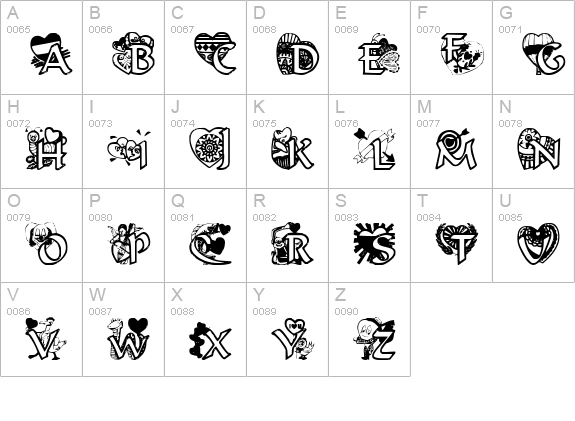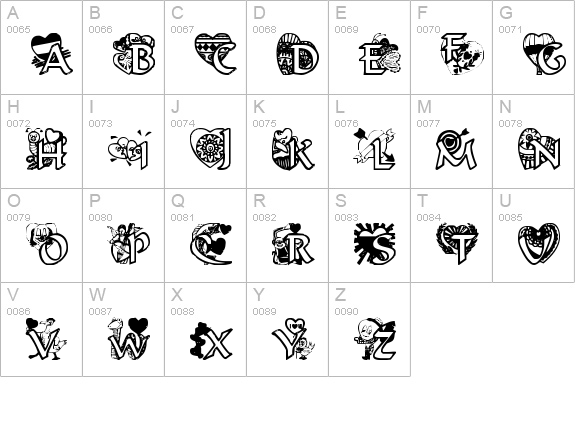
VALENTINEHEARTS Font Details
Introducing VALENTINEHEARTS, a charming and whimsical font that is sure to capture the essence of love and romance. With its delicate and intricate heart-shaped letterforms, this font exudes a sense of warmth and affection, perfect for Valentine's Day greetings, wedding invitations, love letters, and more. VALENTINEHEARTS is a free font that is generously made available for download at FontsMarket.com. Designed with meticulous attention to detail, each letter is adorned with a unique heart motif, creating a truly captivating visual experience. The fluidity of the strokes and the graceful curves of the hearts add a touch of elegance and playfulness to any design project. Whether you are crafting an enchanting love note, designing a heartfelt greeting card, or creating a romantic logo, VALENTINEHEARTS is the perfect choice to convey your emotions. Its versatility allows it to be used in a variety of contexts, from digital media to print materials, ensuring that your message of love reaches its intended audience with utmost impact. With VALENTINEHEARTS, you can effortlessly infuse your designs with love, joy, and tenderness. Its compatibility with various design software makes it a hassle-free option for both professional designers and enthusiasts, allowing everyone to express their creativity with ease. Spread the love and make your designs truly memorable with the enchanting beauty of VALENTINEHEARTS. Remember, this delightful font is freely available for download exclusively at FontsMarket.com. So, seize this opportunity to add a touch of love and romance to your creative endeavors, and let VALENTINEHEARTS become an essential part of your typographic collection. Download it today and discover the power of love in every letter.